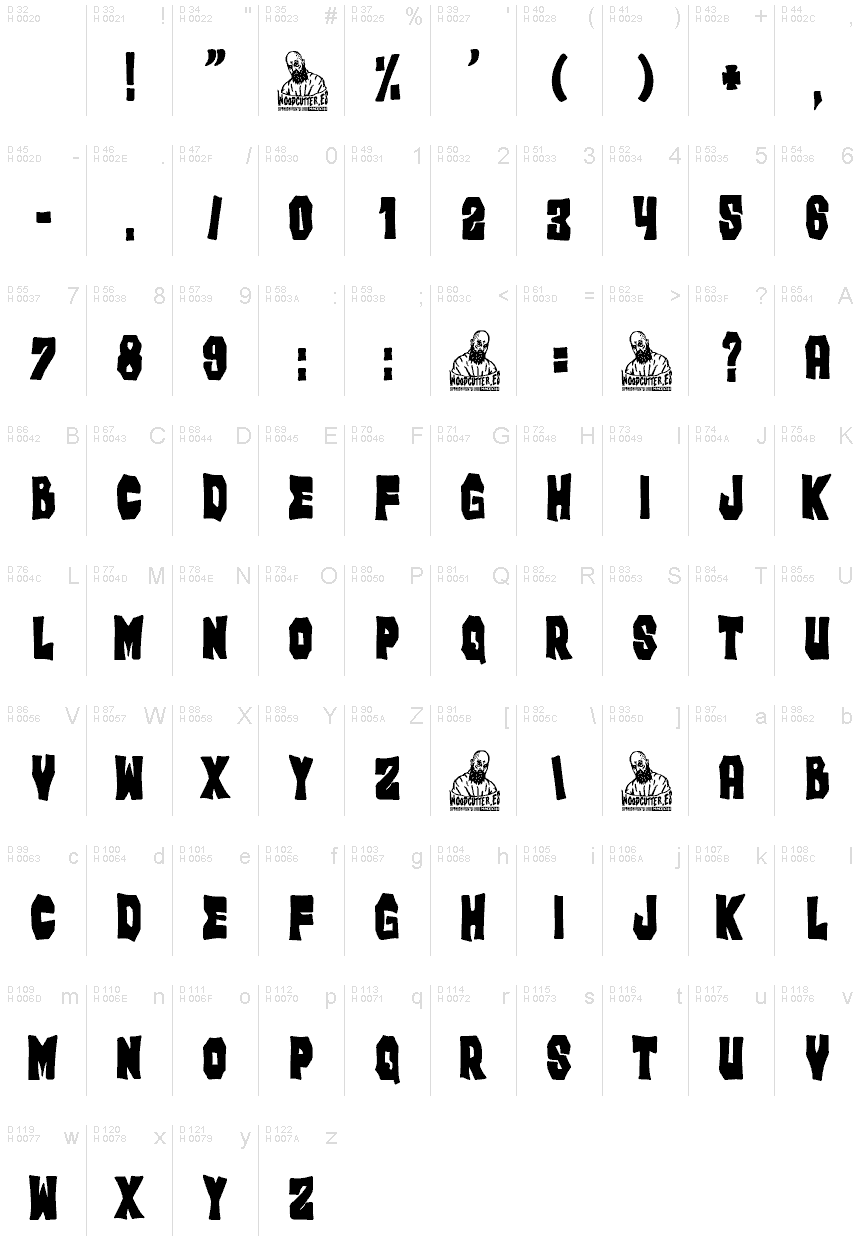
Sistema Central
Sistema Central font by Woodcutter is a bold, condensed display font with angular forms and a rough uneven finish. This free typeface is inspired by retro elements and renowned for its artistic flair and vintage appeal with interesting letter combinations.
Use Sistema Central for music posters, album covers, video titles, website headers, movie posters or title sequences. It’s an excellent choice for visual identity projects in the entertainment industry (band/club logos), especially when paired with bold bright colors.